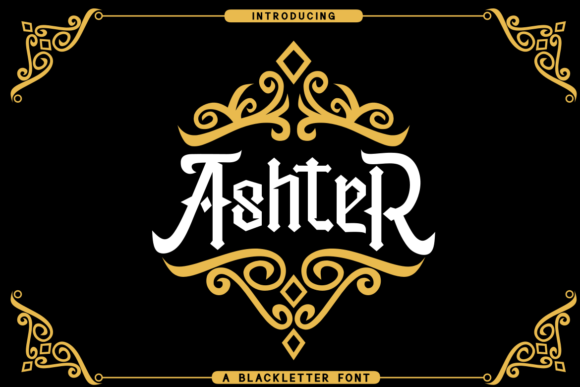
Prepare to unleash your artistic vision with AshteR, the blackletter font that's a true game-changer in the world of typography. Immerse yourself in its captivating charm and watch as your creative projects take on a whole new life. AshteR is a font that speaks to the soul, evoking a sense of intrigue and mystery that will leave a lasting impression on your audience.
With AshteR, you have a font that's more than just a collection of letters – it's an expression of your individuality. Its bold and distinct strokes command attention, making it the perfect choice for creating logos, posters, and headlines that demand to be seen. Unleash your inner rebel and let your designs stand out from the crowd.
If you're a tattoo artist, AshteR is your secret weapon. Its unique blackletter style adds an edgy and captivating touch to your designs, ensuring that your tattoos leave an unforgettable mark. Let your creativity flow freely as you explore the endless possibilities that AshteR offers.
AshteR is not just a font; it's an experience. Immerse yourself in its intricate details and let your imagination soar. Its bold lines and sharp angles create a visual feast that will captivate your audience and leave them yearning for more. Prepare to embark on a typographic journey like no other.